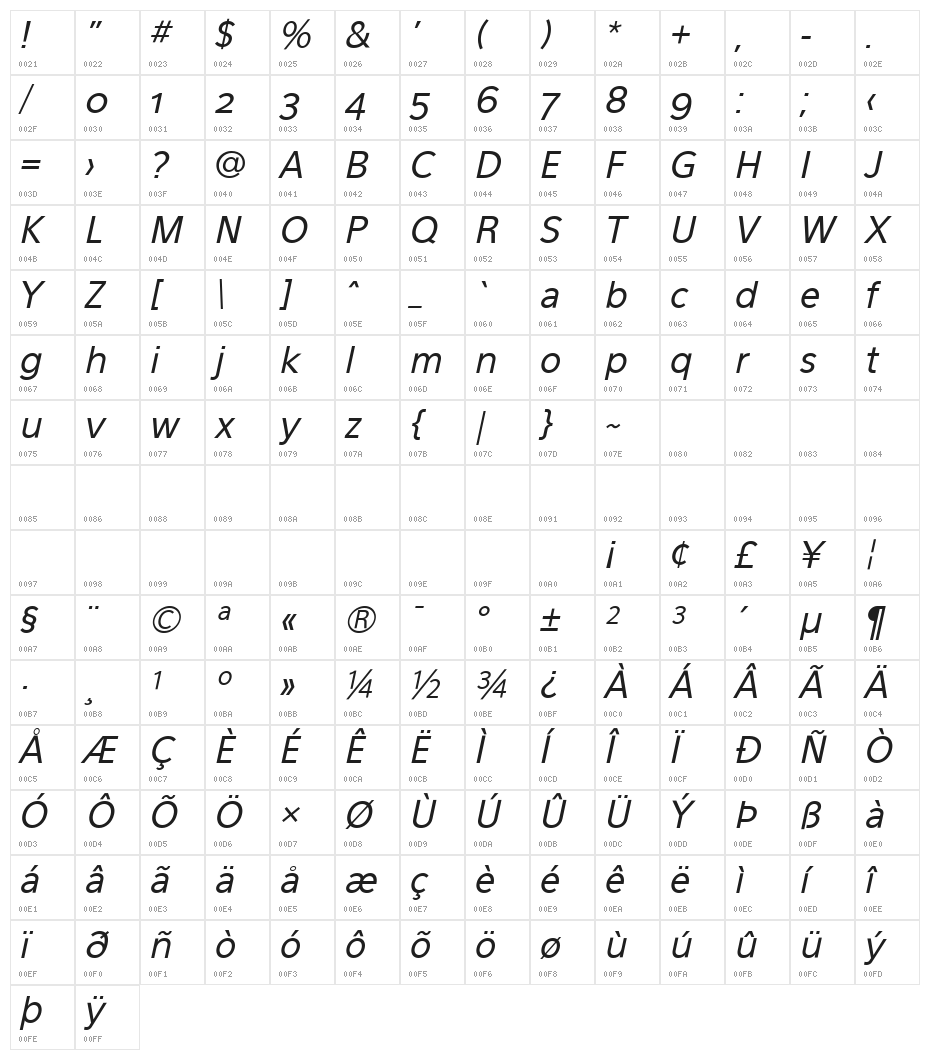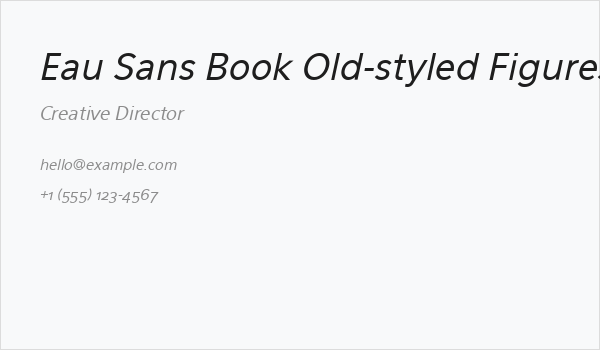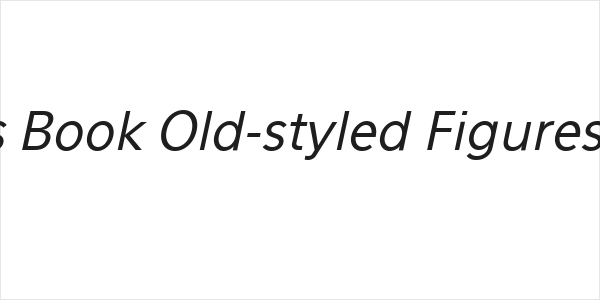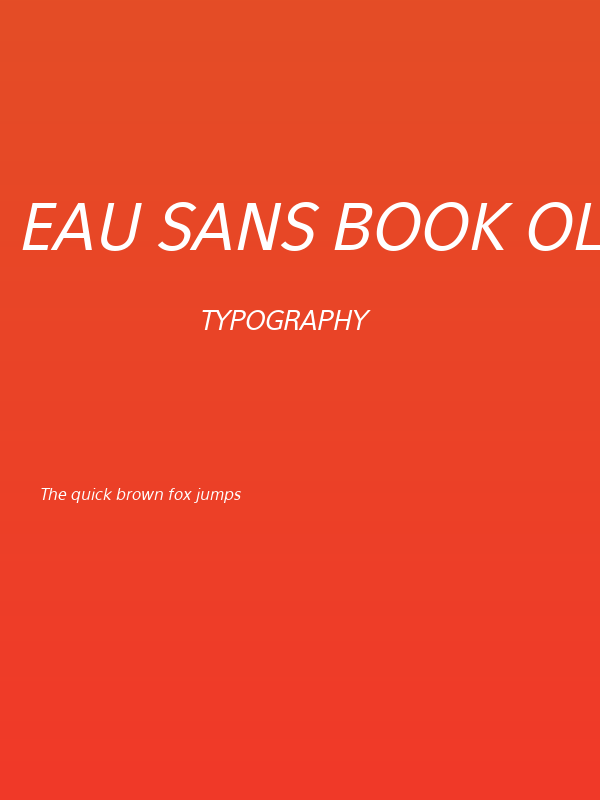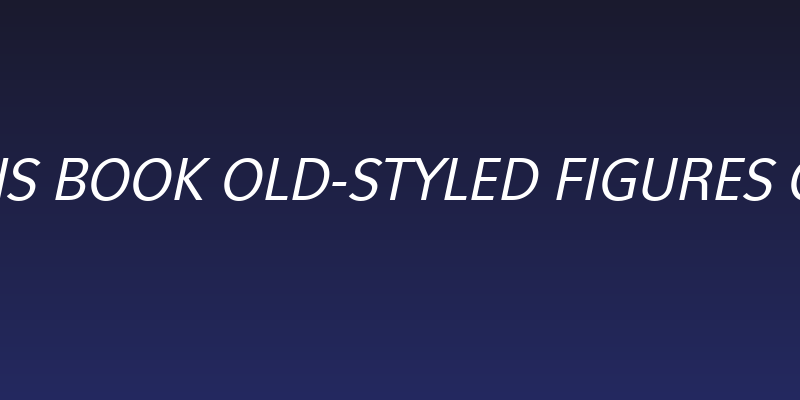
Eau Sans Book Old-styled Figures Oblique Font
Eau Sans Book Old-styled Figures Oblique Description
This font exhibits a sleek and modern sans-serif style with a subtle oblique slant, giving it a dynamic and contemporary appearance. The characters are clean and well-defined, with a consistent stroke width that maintains readability across various sizes. The uppercase and lowercase letters are proportionate, and the numerals are distinct, ensuring clarity in numerical data presentation. Special characters are included, providing versatility for different contexts. The overall design is minimalist yet elegant, making it suitable for a range of applications from digital to print media.